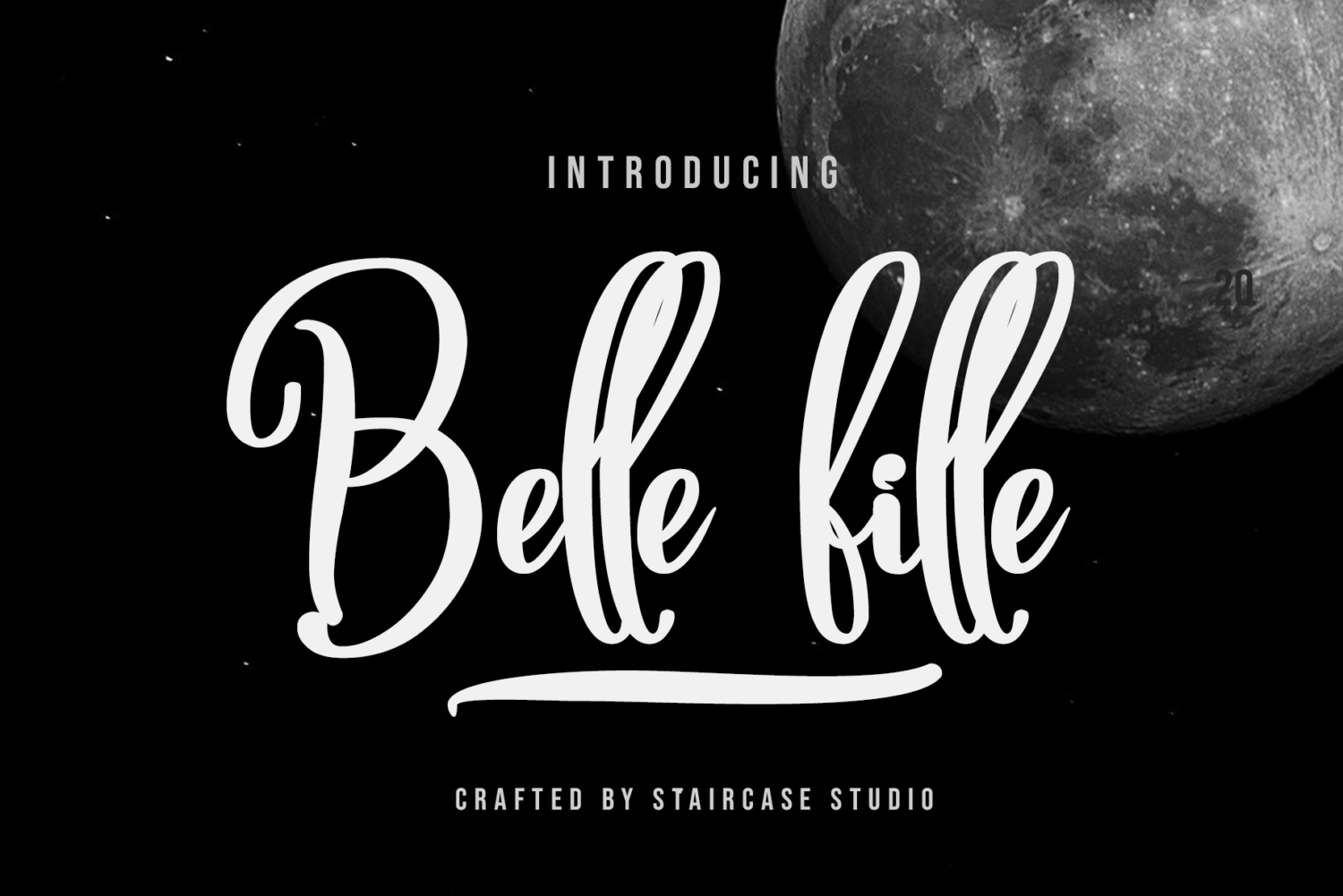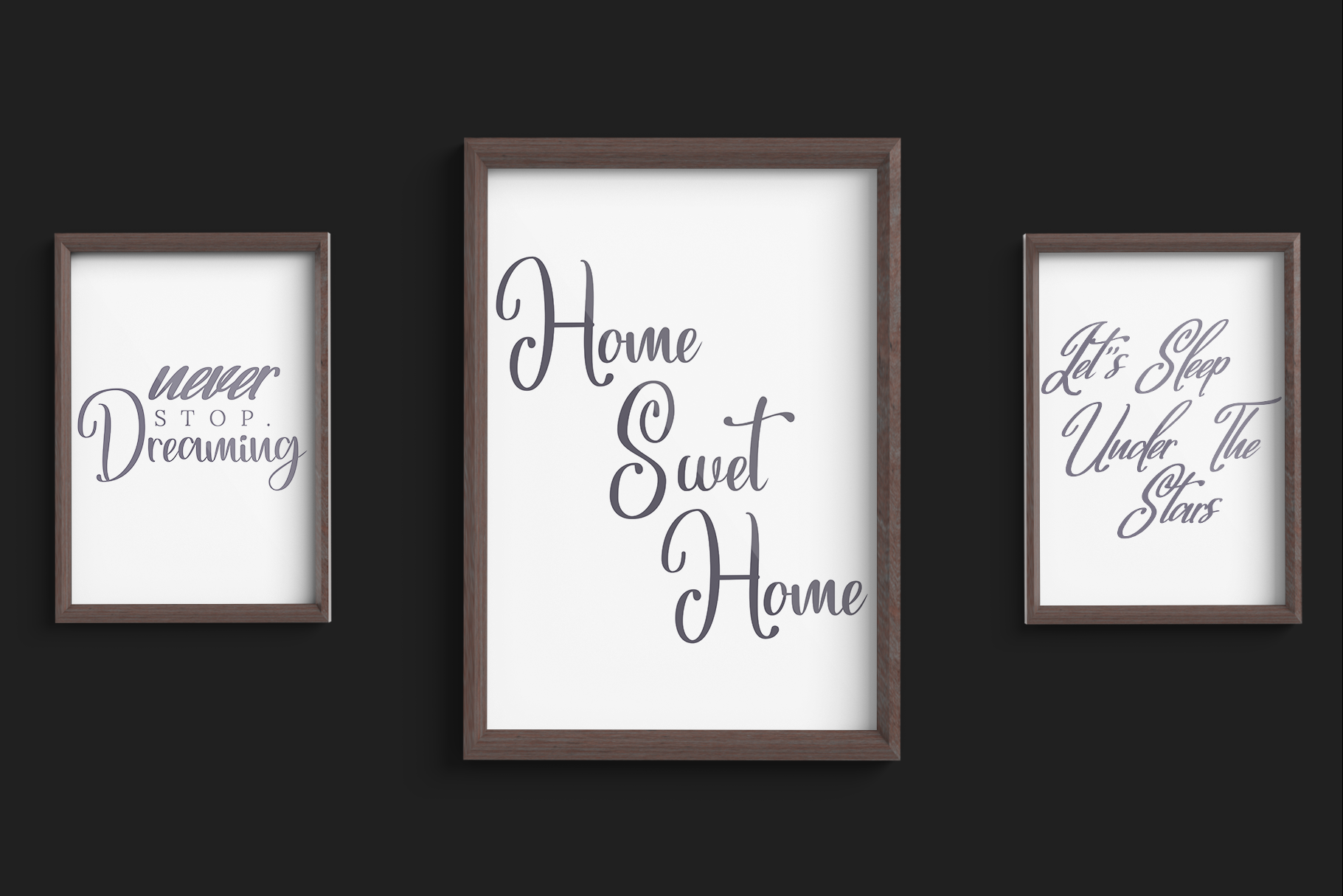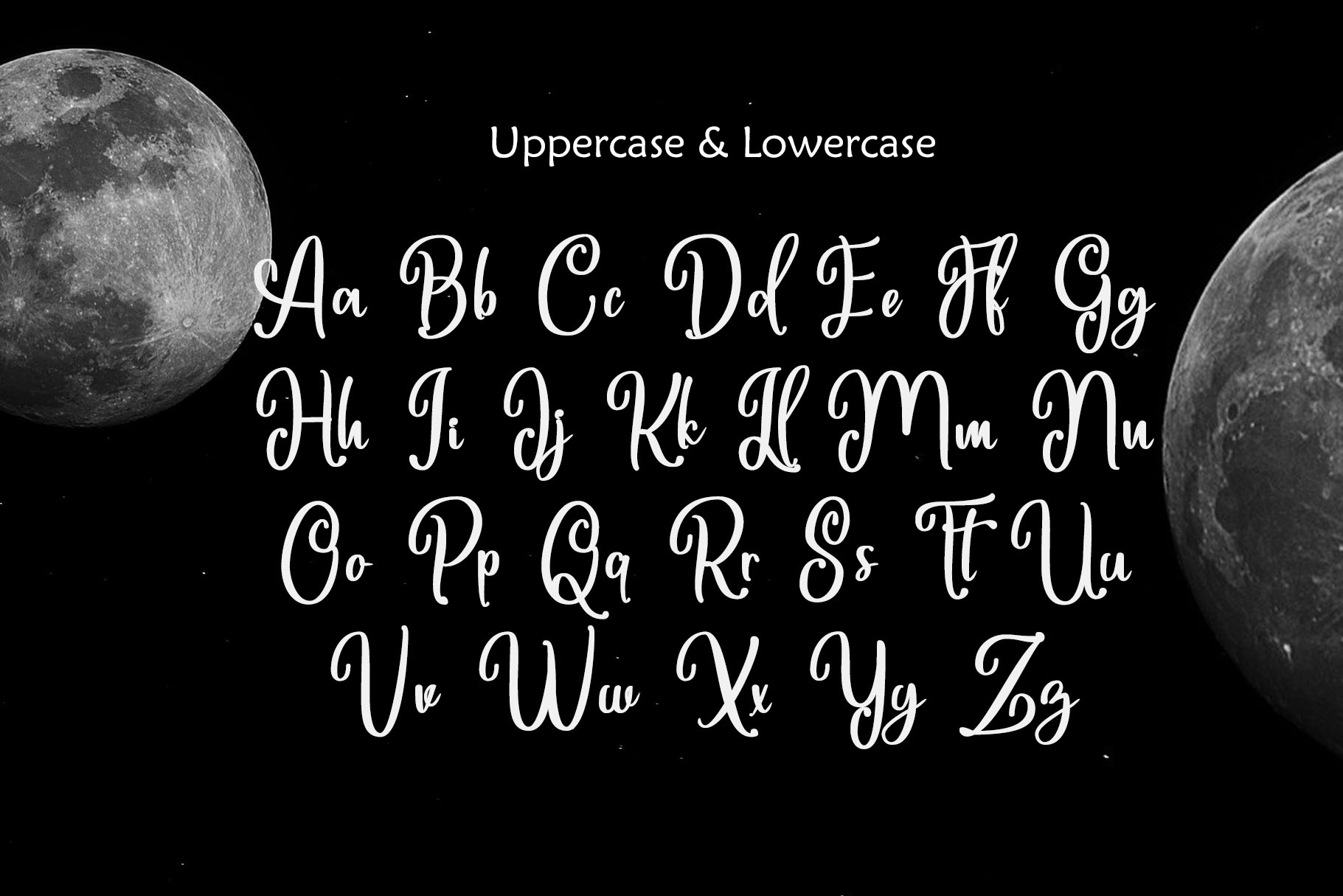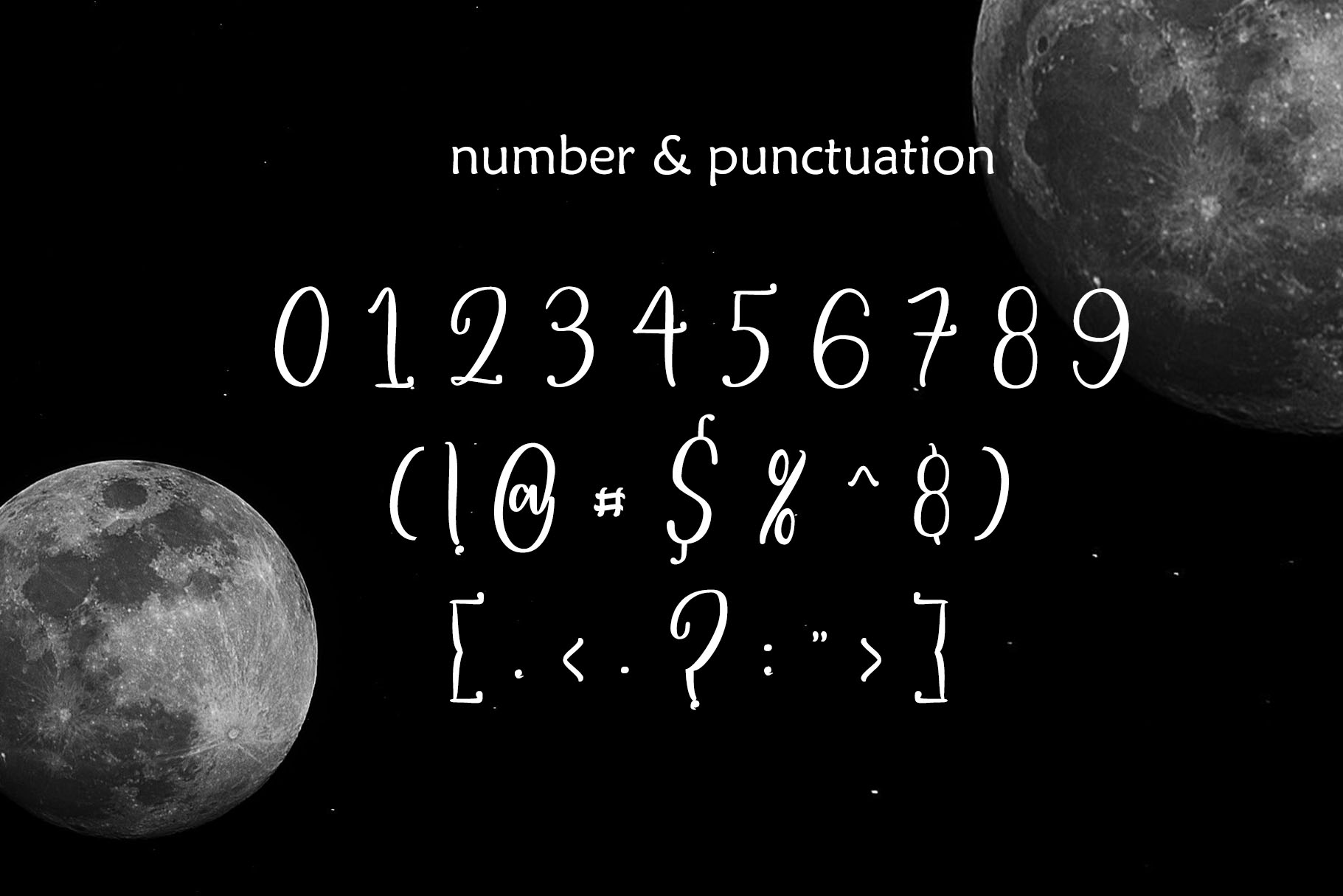
Belle Fille Free Font
Belle Fille Free Font with script font styles. A collection of letters and numbers suitable for your projects also great for Logotype, Branding Design, Logo Design, Digital Lettering Arts, T-Shirt/Apparel, Poster, Magazine, Signs, Advertising Design, and any design needs. This free typeface was designed by a talented Staircase Studio. If you like it don’t forget to check out the full version.